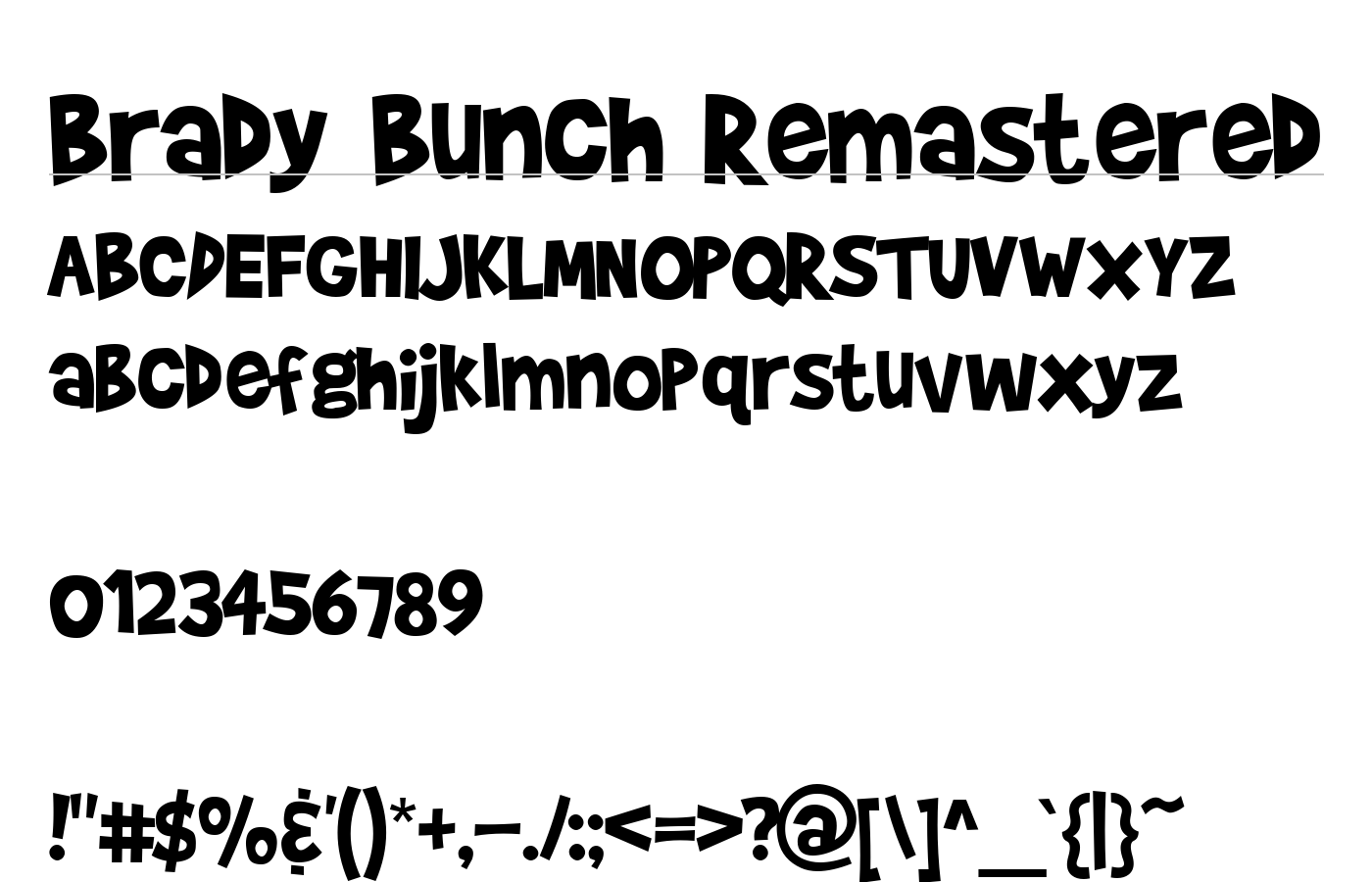
Brady Bunch Remastered is a playful and bold sans serif font with a hand-drawn, slightly irregular style that brings a fun and casual vibe. Its thick, solid strokes and tall x-height make it highly legible and eye-catching, perfect for adding a lively personality to headlines, posters, and branding that aims for a nostalgic or whimsical feel. This font works best in creative and informal contexts where a friendly, energetic tone is desired.
Brady Bunch Remastered Font